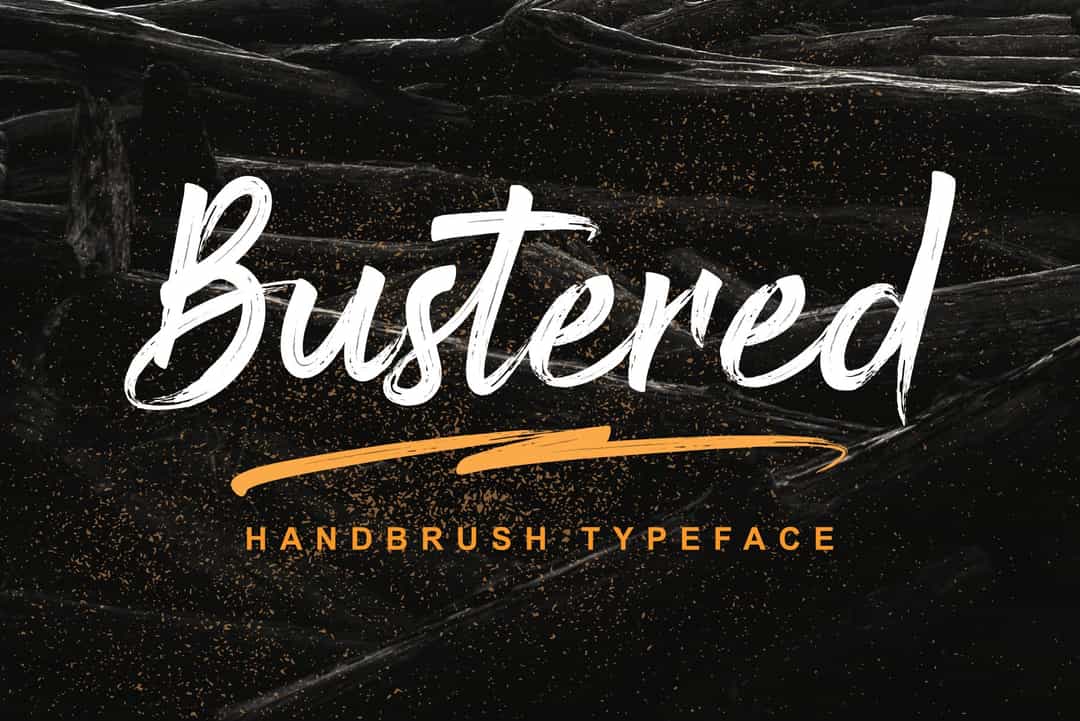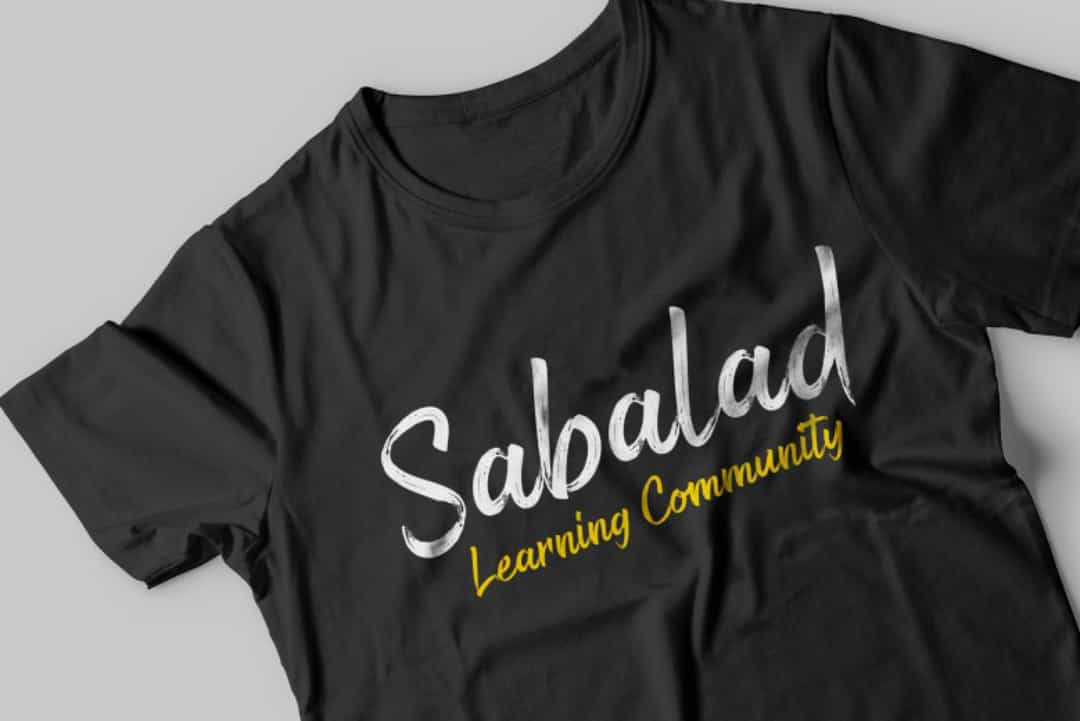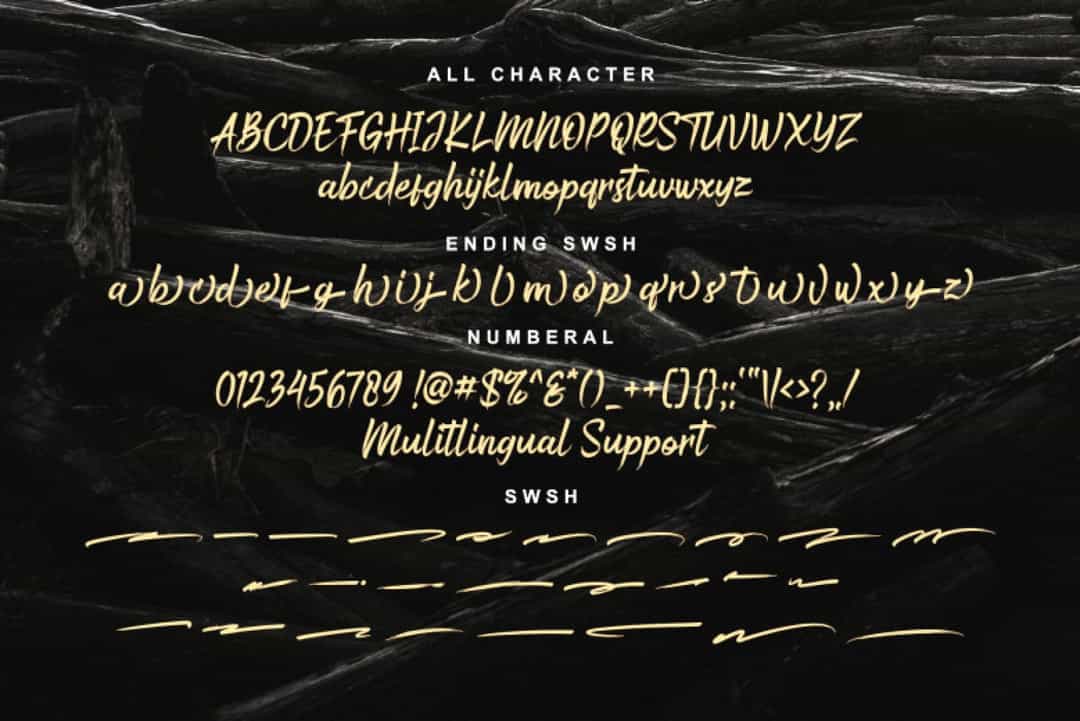
Bustered Brush font is an innovative new Hand Brush font designed specifically for designers. Boasting unique etched textures that add an eye-catching appearance, it adds a distinctive look to any design project. Support includes Uppercase, Lowercase, Numbers and Symbols plus Multilingual support as well as ending SWSH ending and Completeness up to 26 Swsh ending.